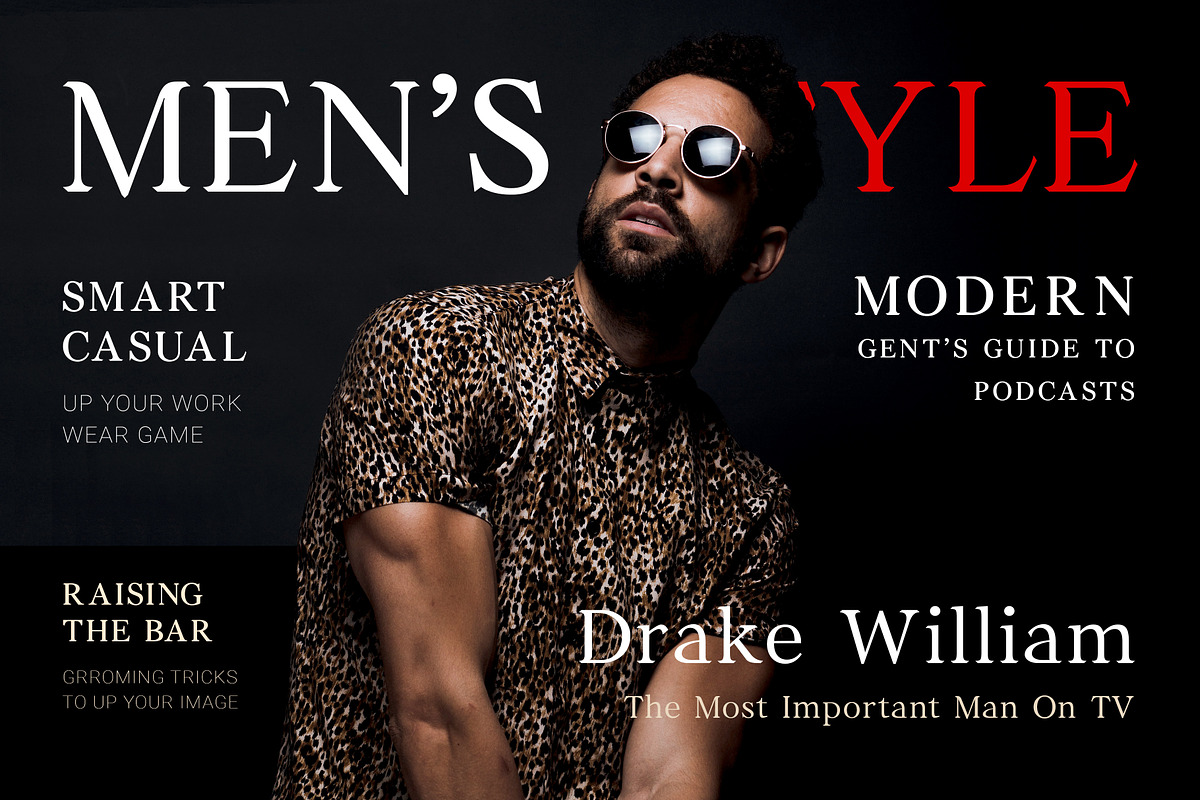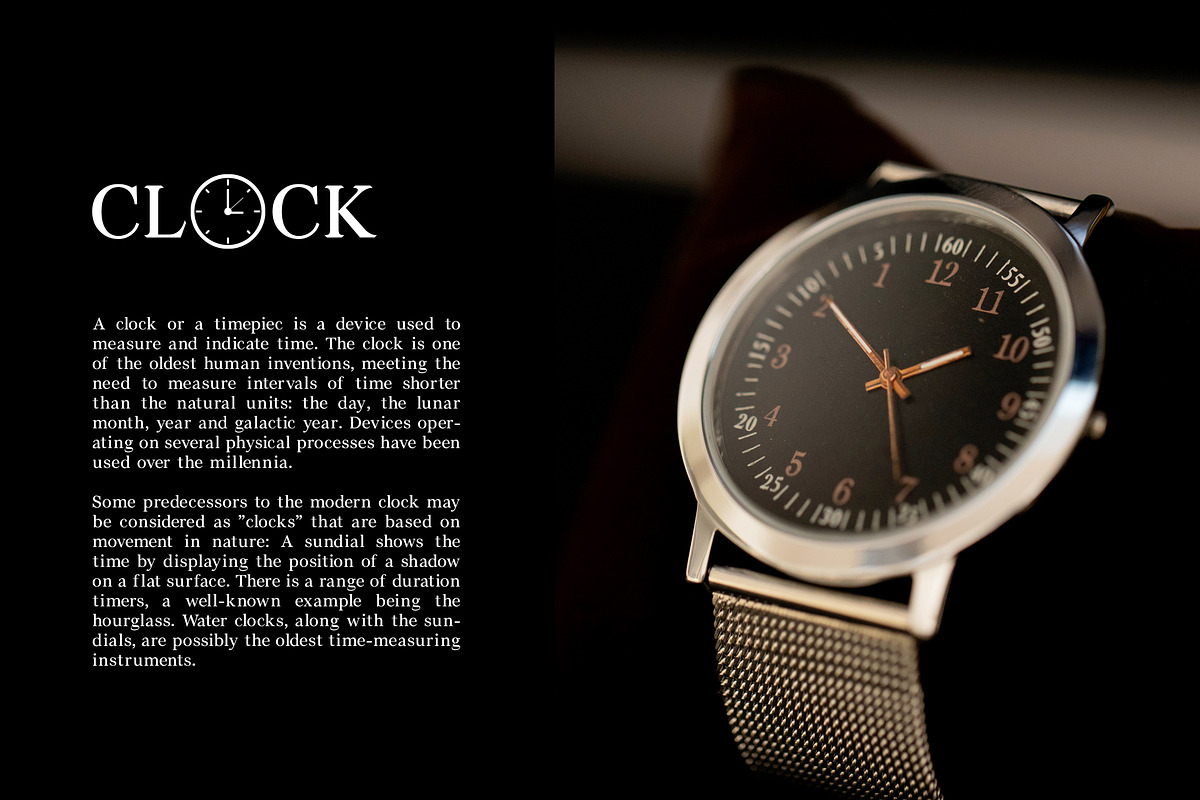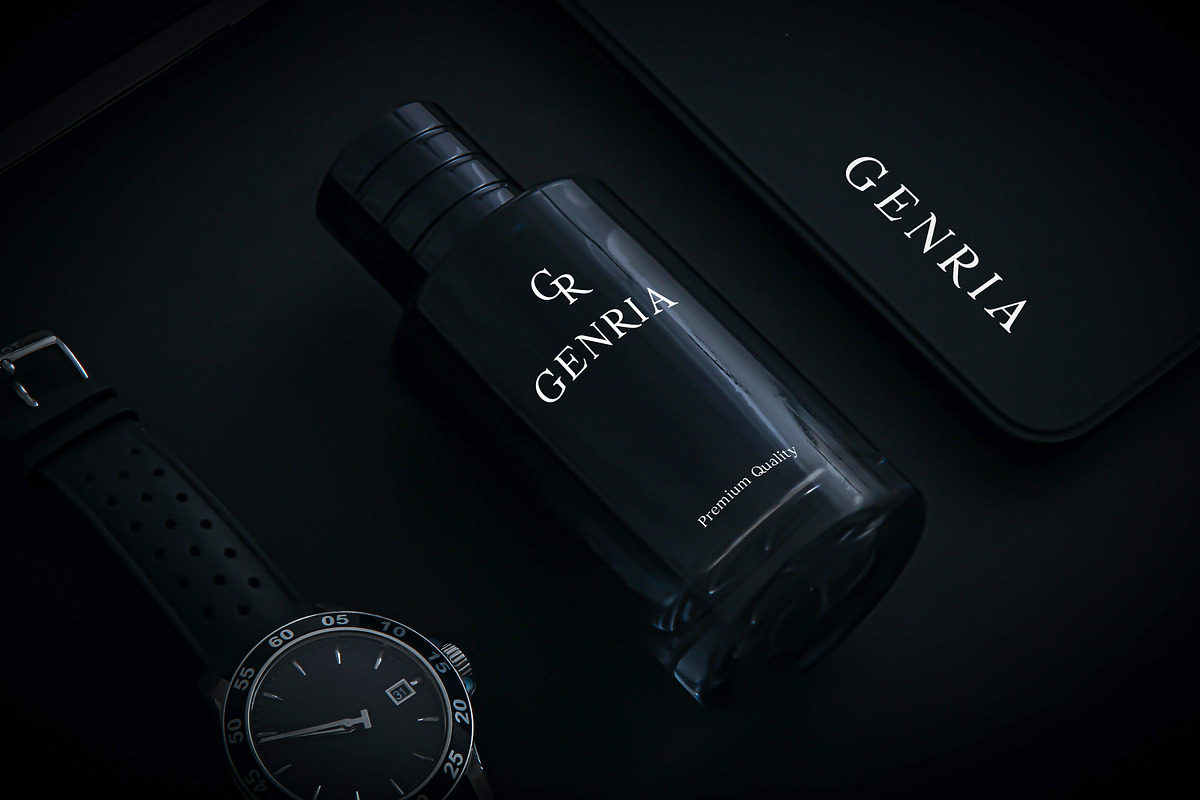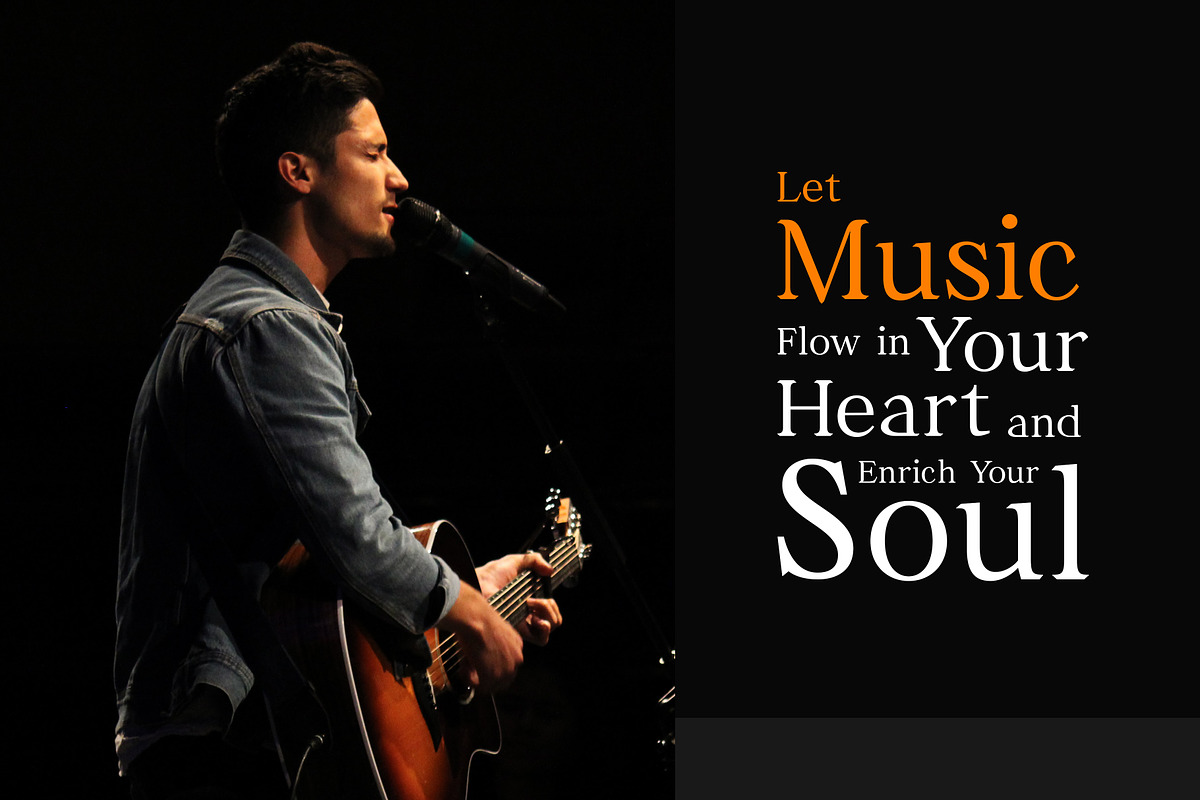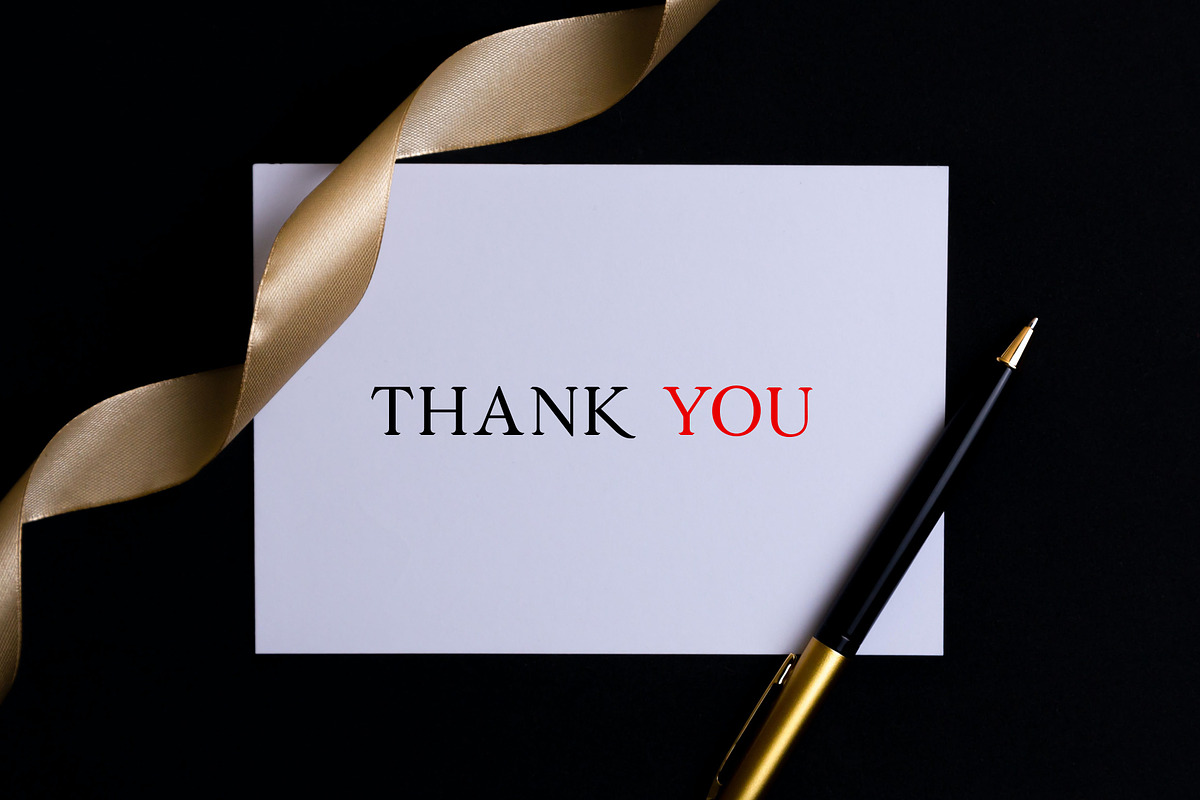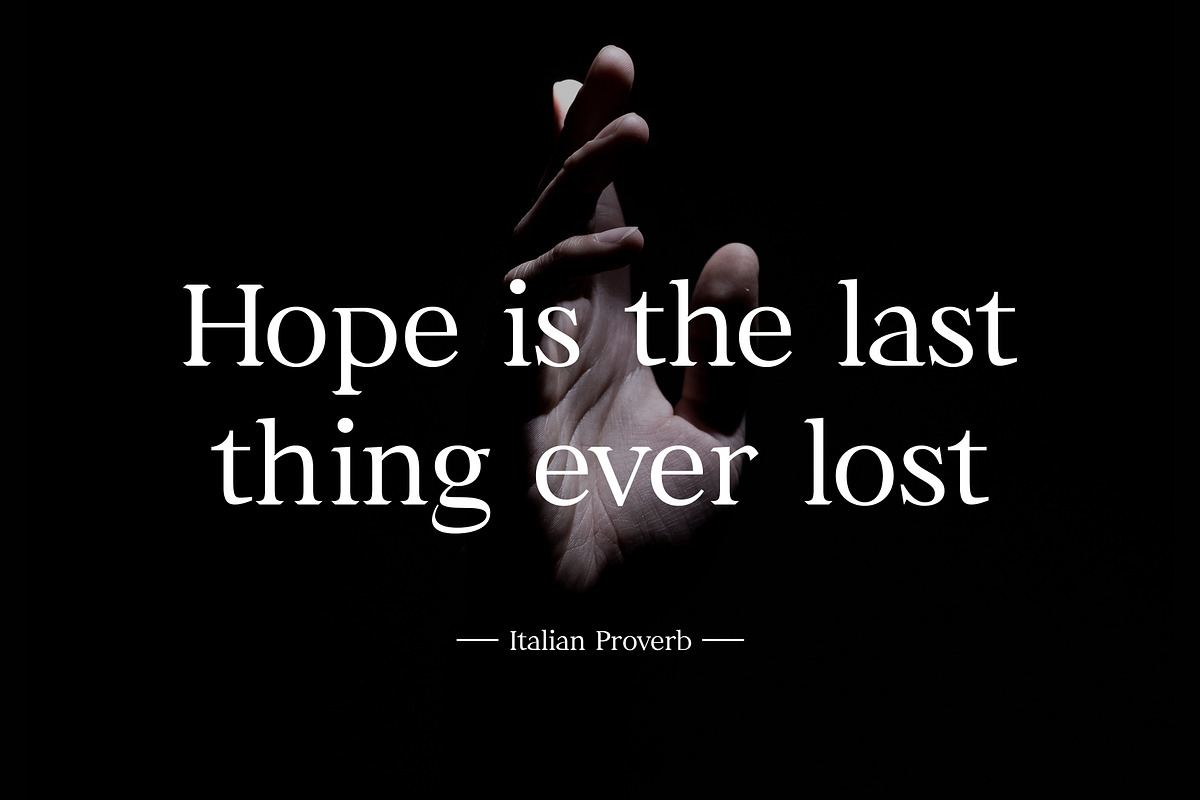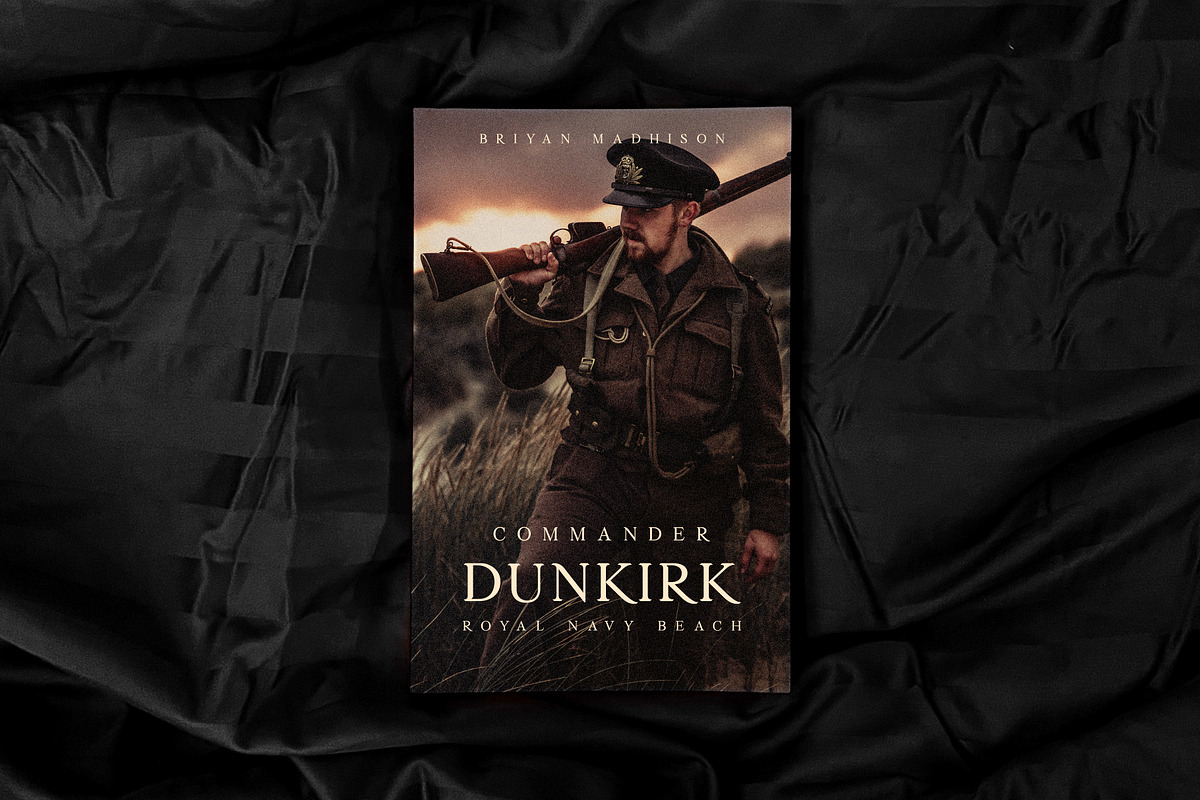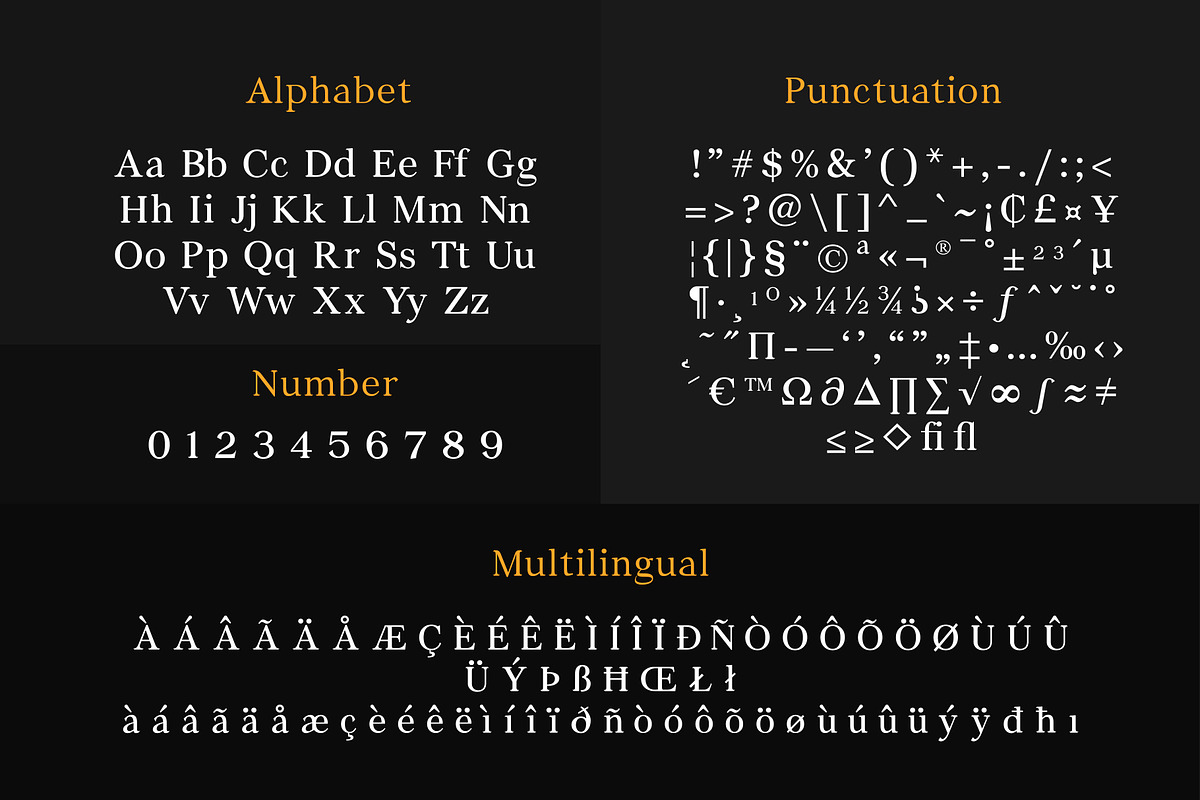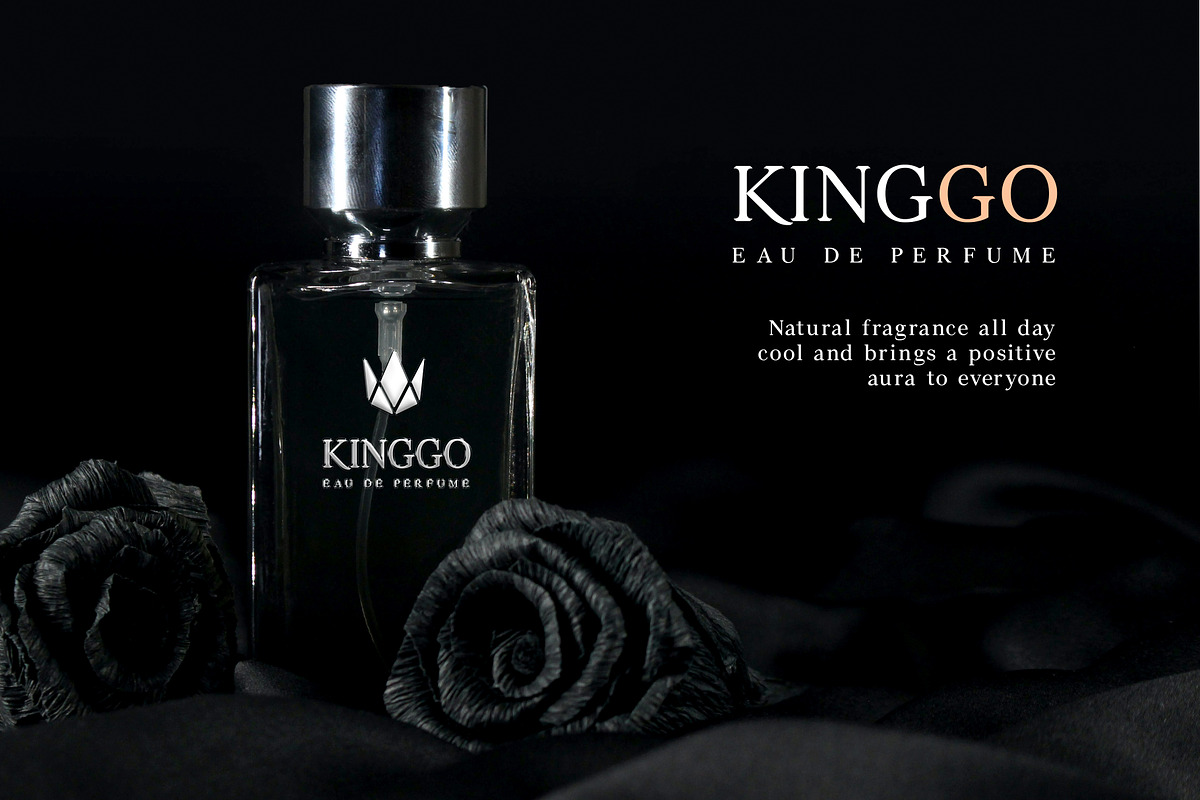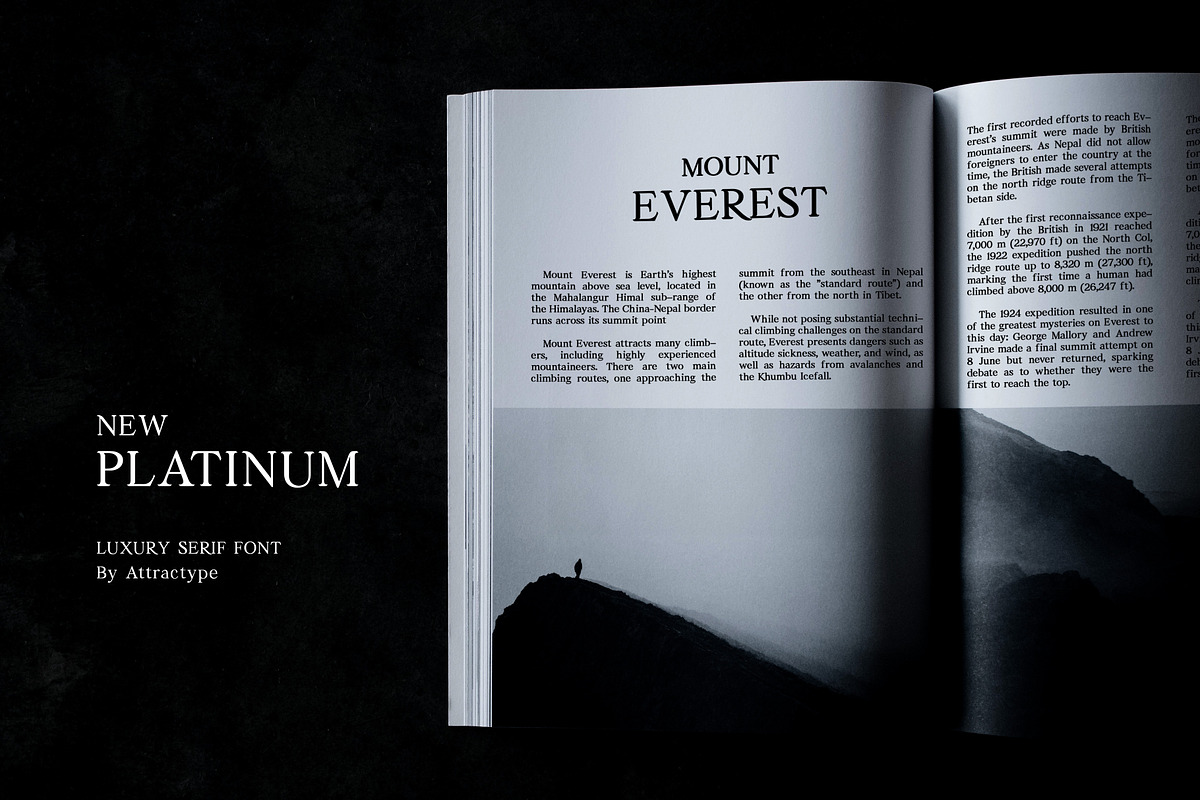
New Platinum - Luxury Serif Font
New Platinum is luxurious font that will engage your audience and make your promotions and projects stand out. New platinum includes a Multilingual option to make your branding globally recognized.
New Platinum perfect for headings, text, logos, business cards, printed quotes, invitations of all sorts, advertisements, product packaging, UI/UX design, and your website or social media branding.
- Numbers and complete punctuation